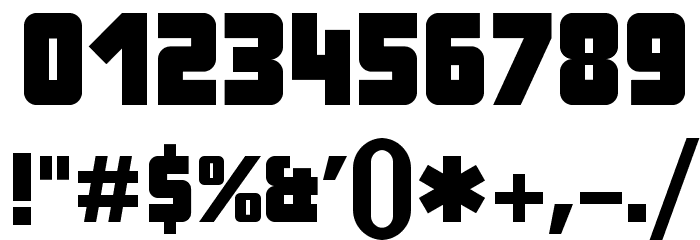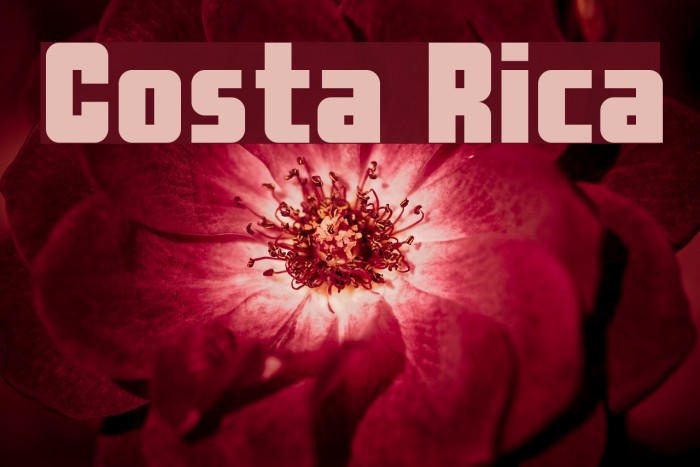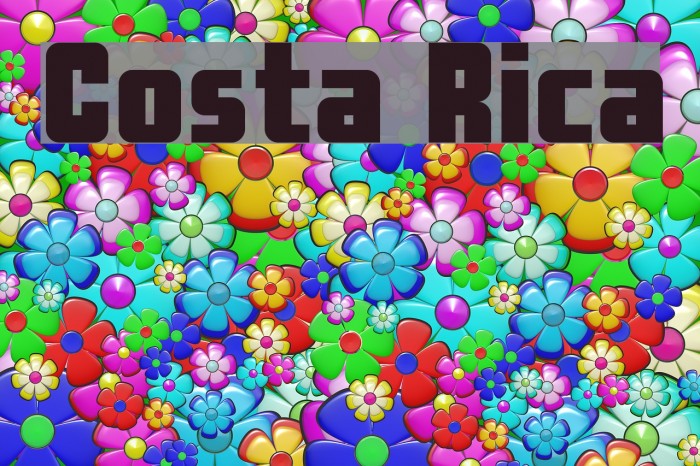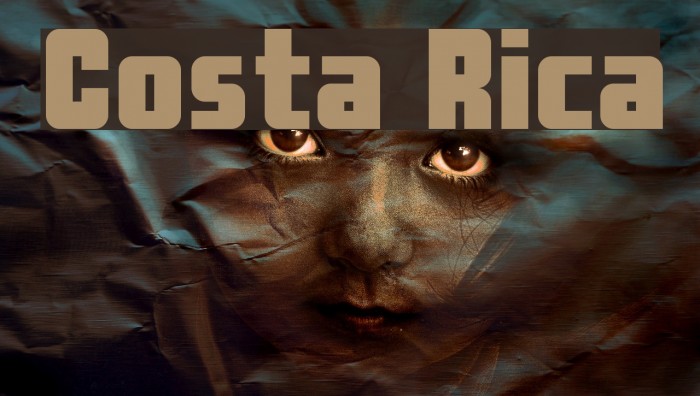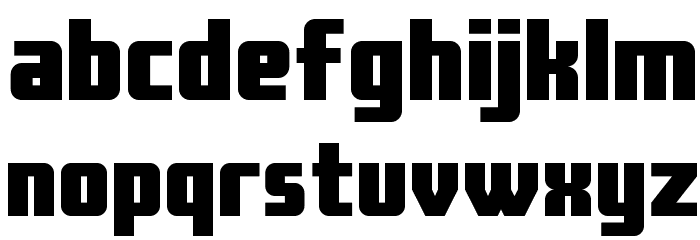
Costa Rica Font
This font features bold, geometric letterforms with a strong presence, making it ideal for impactful designs. The uppercase and lowercase letters are consistent in their blocky, robust style, with sharp angles and a uniform stroke width that conveys a sense of strength and stability. The numerals and special characters maintain this bold aesthetic, ensuring a cohesive look across all text elements. Its design is reminiscent of industrial or sports-themed typography, with a modern twist that makes it suitable for contemporary projects.
A bold, geometric font with a strong, modern aesthetic.
• Proposed Projects: This font is perfect for sports branding, posters, headlines, and any project requiring a bold, impactful typeface.